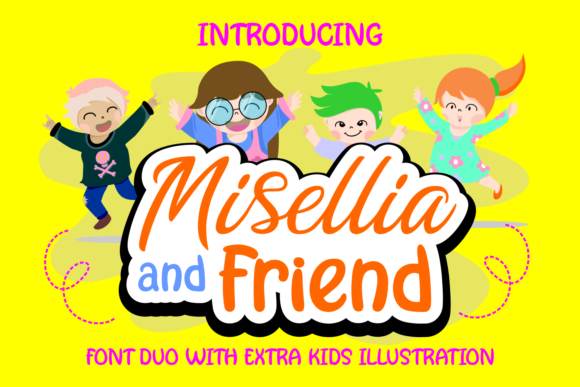
Venture into a world of enchanting scripts with Misellia and Friend Duo Font, a font duo that radiates warmth, playfulness, and boundless creativity. Its whimsical characters, meticulously crafted with a touch of childlike innocence, dance across the pages, evoking a sense of wonder and delight in every word.
Misellia, the darling of the duo, captivates with its playful charm. Each letterform is a work of art, adorned with delicate strokes and adorned with a hint of whimsy. Its bouncy baseline and cheerful loops create a sense of boundless joy and youthful exuberance.
Friend, its perfect companion, exudes warmth and friendliness. Its rounded edges, reminiscent of a child's handwriting, convey a sense of comfort and familiarity. The letters flow seamlessly together, inviting readers to embark on a heartwarming journey through your words.
Together, Misellia and Friend form an unbeatable duo, perfectly suited for crafting children's stories, invitations, and any project that demands a touch of whimsy. Its versatility extends beyond the realm of childhood, making it an excellent choice for branding, packaging, and social media designs that aim to capture a playful and lighthearted tone.